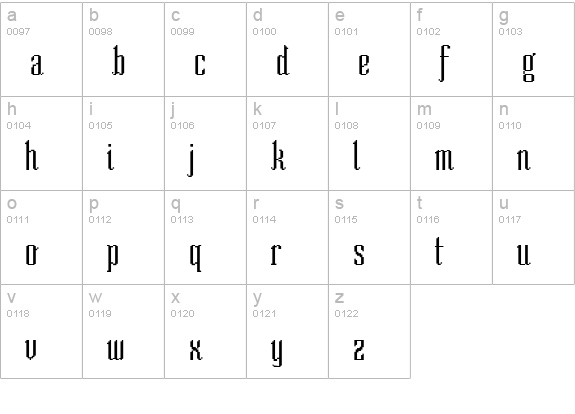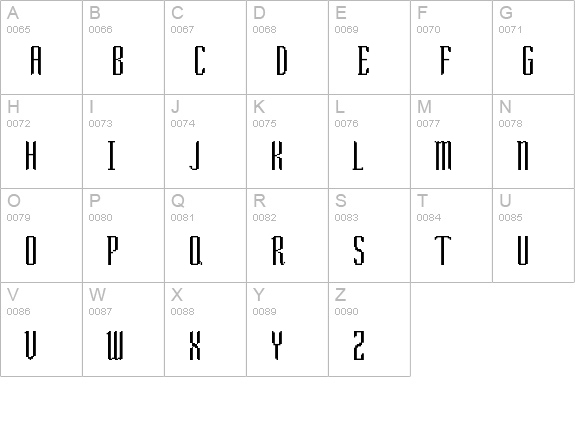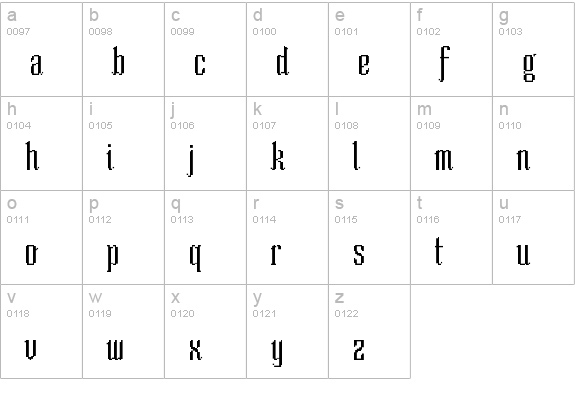
So Condensed Font Details
So Condensed is a distinctive, condensed-width variant in the So typeface family \xE2\x80\x94 well suited to design and typography projects.
Introducing So Condensed, a sleek and sophisticated font that will elevate your designs to new heights. This font combines modernity with elegance, making it perfect for a wide range of projects, from branding and packaging to advertising and editorial design. So Condensed is meticulously crafted with attention to detail, resulting in a clean and minimalistic typeface that exudes professionalism and refinement. Its condensed form allows for efficient use of space, making it ideal for layouts that require a compact and stylish aesthetic. But what sets So Condensed apart is not just its exceptional design, but also its accessibility. We are proud to offer this remarkable font free of charge, allowing designers of all backgrounds to benefit from its beauty and versatility. You can download So Condensed for free at FontsMarket.com, where you can explore a vast library of fonts to enhance your creative endeavors. Whether you're working on a corporate project, creating a magazine layout, or designing a website, So Condensed will provide the perfect balance of elegance and functionality. Its legibility remains uncompromised even at smaller sizes, ensuring that your messages are clear and impactful. So Condensed is compatible with various design software and can be seamlessly integrated into your existing workflow. Its extensive character set includes uppercase and lowercase letters, numerals, punctuation, and multilingual support, making it suitable for projects with diverse linguistic requirements. With So Condensed, you have the power to transform your designs and captivate your audience. So why wait? Download this exceptional font for free at FontsMarket.com and unlock a world of creative possibilities. Embrace the beauty of So Condensed and let your imagination soar.